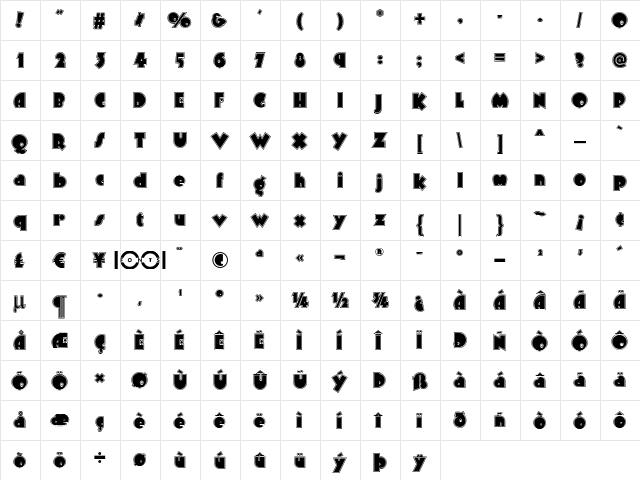
Arbuckle Inline NF Regular
| Foundry | Nick's Fonts |
| Designer | Nick Curtis |
Design Context for Arbuckle Inline NF Typeface
Arbuckle Inline NF is built around its visual character rather than neutral utility — its distinctive forms are designed to make an impression at display sizes.
Font Pairing: Pair with a clean neutral sans-serif for body copy to let Arbuckle Inline NF's character lead without overwhelming the composition.
Pro Tip: Treat Arbuckle Inline NF as the centrepiece of your typographic hierarchy. One strong heading set in a decorative face can carry an entire layout.